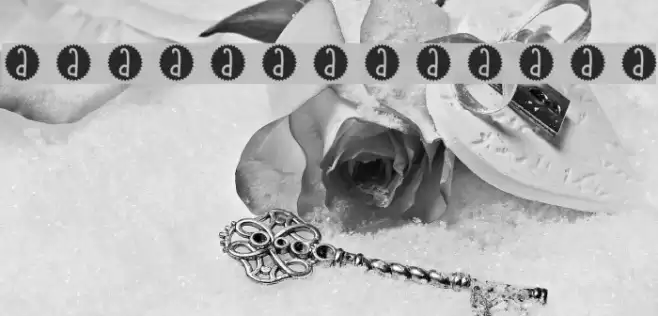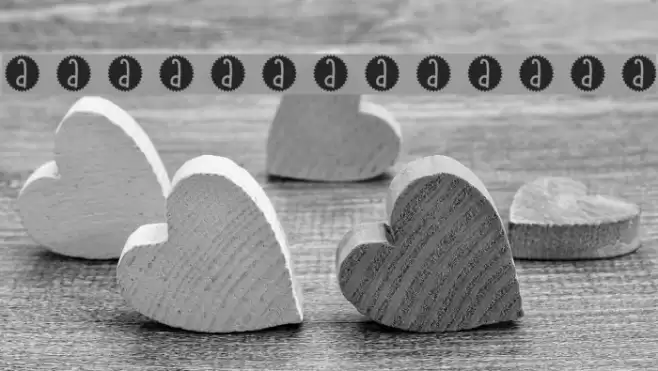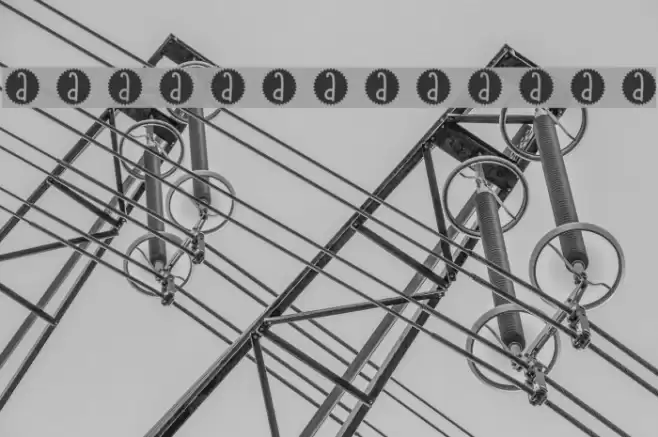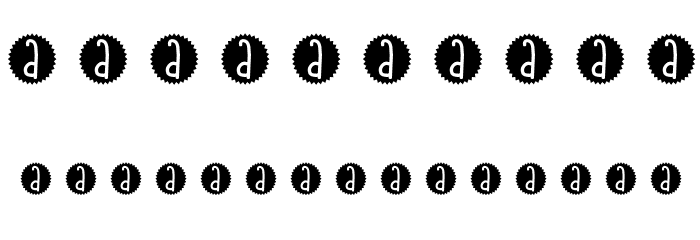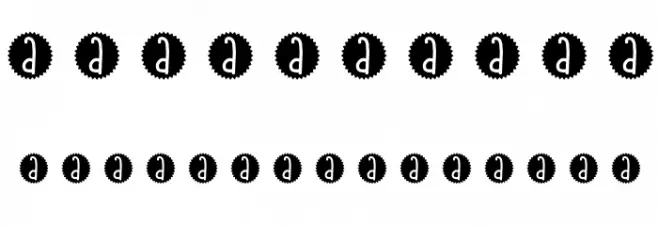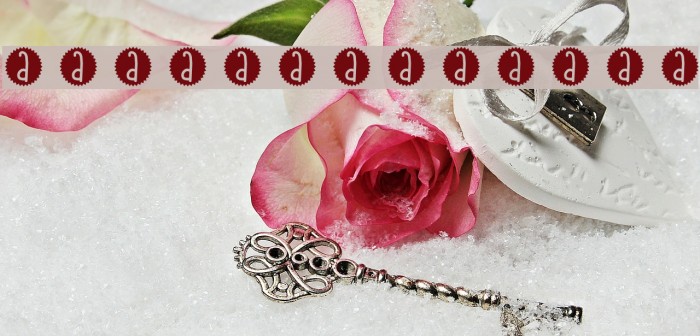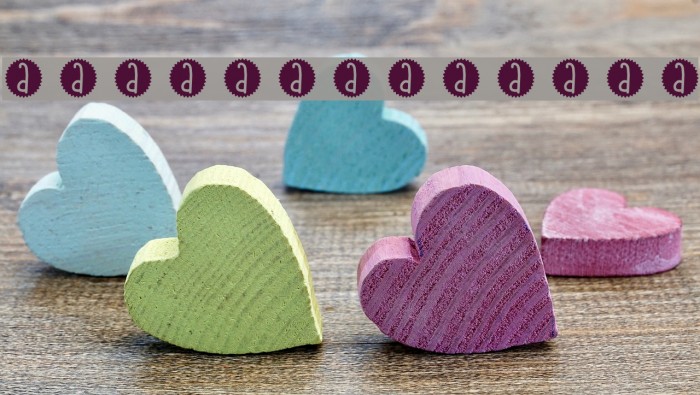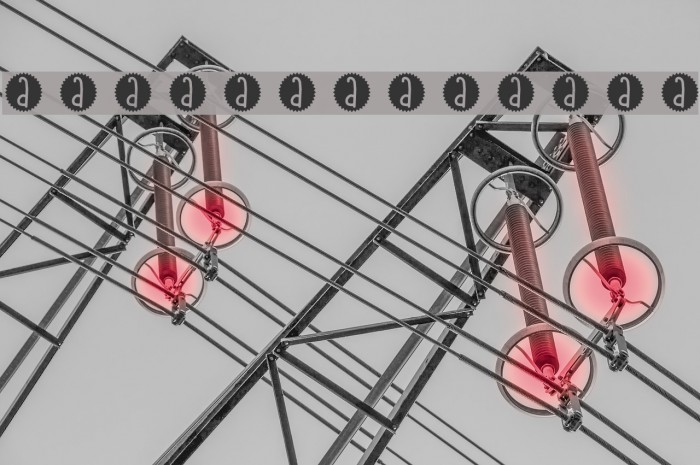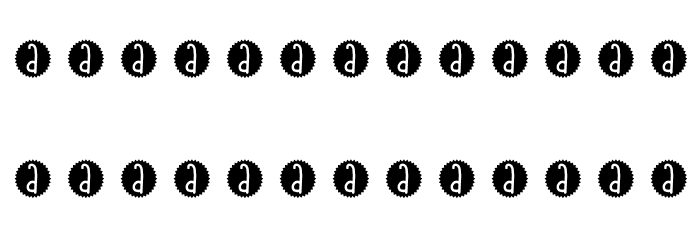
Grateful-Sound Font
Grateful-Sound Description
This font features a unique and playful design, characterized by its circular saw blade-like border surrounding each character. The letters are lowercase 'a's, each enclosed within a jagged, gear-like circle that adds a dynamic and edgy feel. The font's style is bold and eye-catching, making it ideal for projects that require a distinctive and unconventional look. The consistent repetition of the letter 'a' within these circular forms creates a rhythmic and visually engaging pattern, perfect for decorative purposes.
A bold, decorative font with letters enclosed in circular saw blade-like borders from Uncategorized fonts.
- Proposed Projects: Ideal for logos, posters, and branding materials that require a bold and unique visual impact.
- Use Case: Logos, Posters, Branding